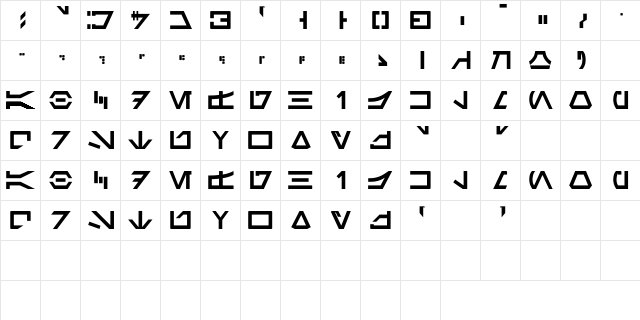
newAurabesh Regular
Design Context for newAurabesh Typeface
newAurabesh is a composed and adaptable typeface that performs quietly and consistently across a wide range of design contexts.